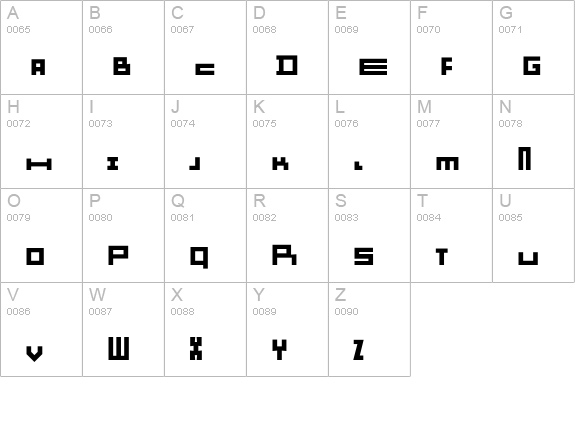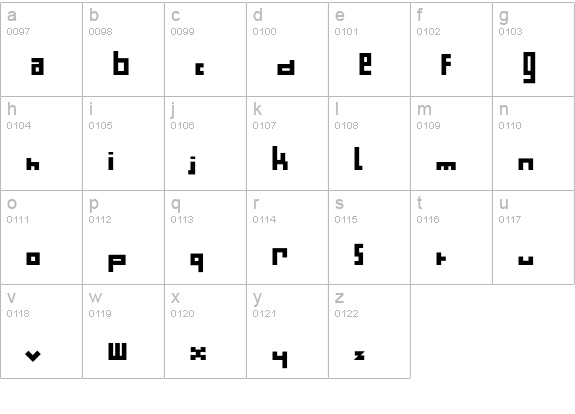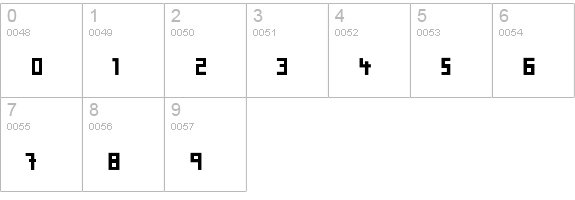
Introducing Minimum-NoirSol, a sleek and sophisticated font that strikes the perfect balance between modern minimalism and classic noir aesthetics. With its clean lines and sharp angles, Minimum-NoirSol exudes an air of mystery and intrigue, making it the perfect choice for projects that demand a touch of elegance and sophistication. This versatile font is ideal for a wide range of design applications, from editorial layouts to branding and packaging. Its bold yet understated presence commands attention while maintaining a sense of refinement and style. Best of all, Minimum-NoirSol is available for free download at FontsMarket.com. Whether you're a seasoned designer looking to add a new tool to your arsenal or a budding creative searching for the perfect font for your next project, Minimum-NoirSol is sure to make a lasting impression. Download it today and elevate your designs with this captivating typeface.